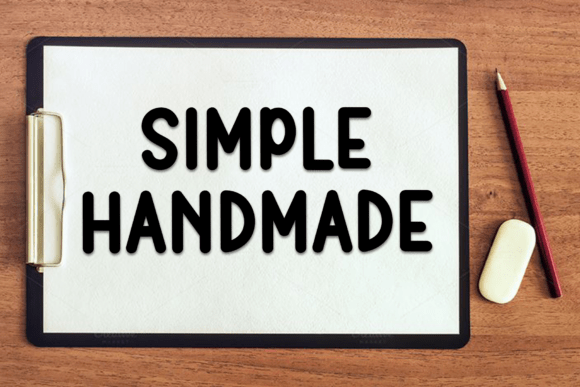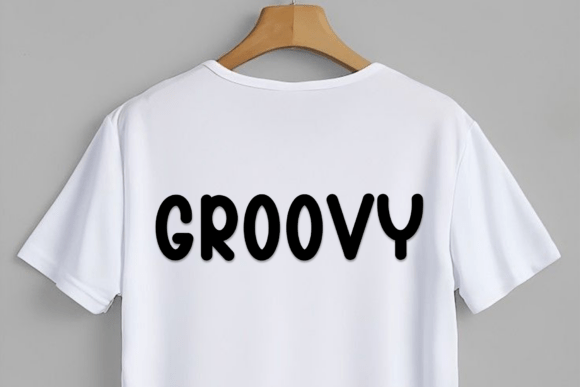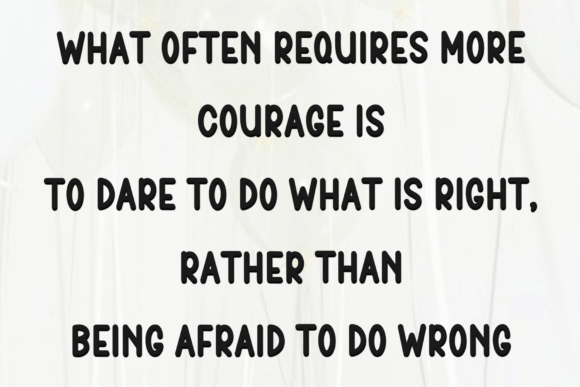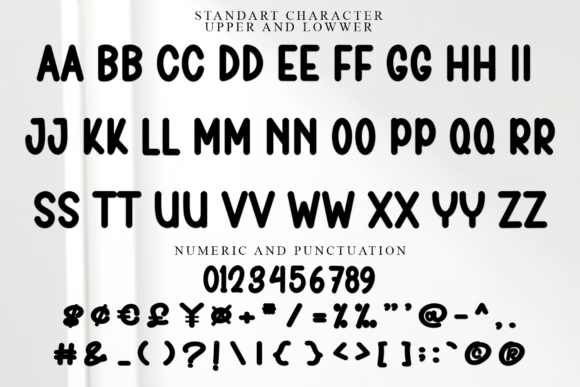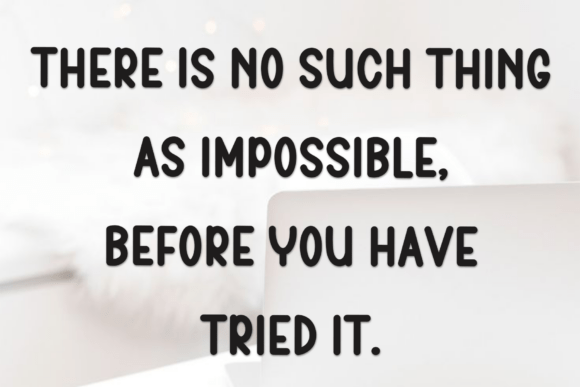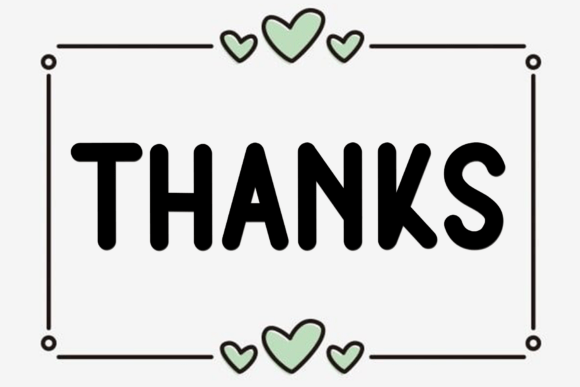
Introduction to Dream Groove Font
Have you ever found yourself staring at a blank canvas, trying to conjure up the perfect design for a creative project? The blank space can be daunting, but sometimes all it takes is the right tool to spark inspiration. That’s where the Dream Groove Font comes in – a charming, hand-drawn font that’s sure to add a touch of warmth and friendliness to your next design.
Whether you’re working on a personal project, creating social media graphics, or designing invitations, the Dream Groove Font is a valuable resource for designers. Its playful strokes and relaxed feel make it the perfect choice for projects where you want to convey a sense of approachability and fun. And the best part? This high-quality font is available for free download, making it an accessible design resource for creatives of all levels.
With its transparent background and versatile design, the Dream Groove Font is the perfect addition to any design project. So why not give it a try and see how it can elevate your next creative project?
Key Features of Dream Groove Font
- Unique and stylish design: The Dream Groove Font is perfect for creative projects, offering a distinctive and eye-catching style that sets it apart from other fonts.
- High-quality design resource: This font is designed to be a high-quality design resource, suitable for a variety of applications, including logos, headings, and body text.
- Transparent background: The Dream Groove Font features a transparent background, making it easy to overlay on top of other design elements and create a seamless look.
- Perfect for creative projects: The Dream Groove Font is ideal for creative projects, including music, art, and design, where a unique and stylish font is essential for conveying a message or creating a mood.
Honest Review: Dream Groove Font
I recently had the chance to work with the Dream Groove Font, and I must say it’s been a game-changer for my design projects. This free download is a high-quality design resource that brings a touch of creativity to any project.
What works well is the font’s versatility – it can be used for a wide range of applications, from branding to web design. The Dream Groove Font is also highly customizable, allowing you to easily adjust the size, color, and style to fit your design needs. ✨
Some of the key features that I appreciate include:
- Transparent background, making it easy to place over any image or design
One limitation I’ve noticed is that the font may not be suitable for very formal or professional projects. It’s best used for more creative and playful designs. ⚠️
Overall, I’m impressed with the Dream Groove Font and would definitely recommend it to designers looking for a high-quality, free design resource. It’s a great addition to any design library and has already been a valuable asset for my own creative projects.
For optimal results, pair the Dream Groove Font with a high-contrast color scheme and a transparent background to create a visually striking design. Experiment with different font sizes and styles to add depth and interest to your creative project.
The Dream Groove Font is ideal for various creative projects, including logo design, branding materials, and social media graphics. Its free download and high-quality design make it a valuable resource for designers and non-designers alike.